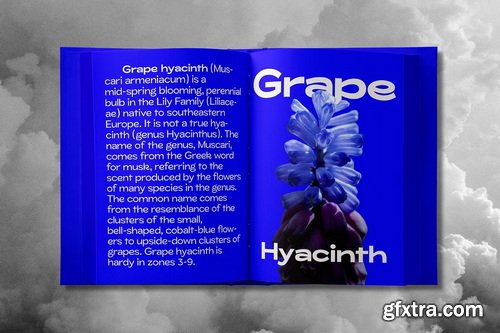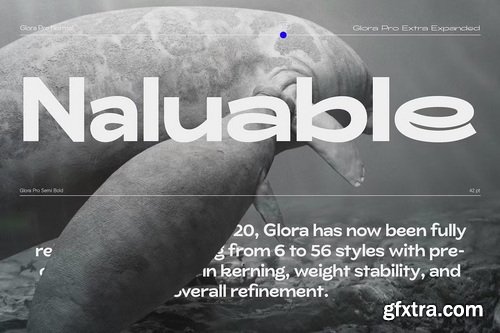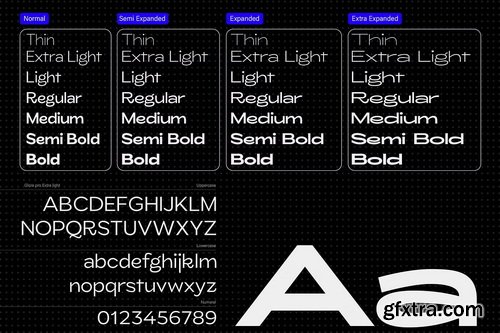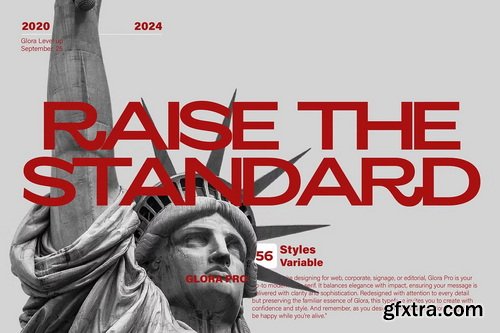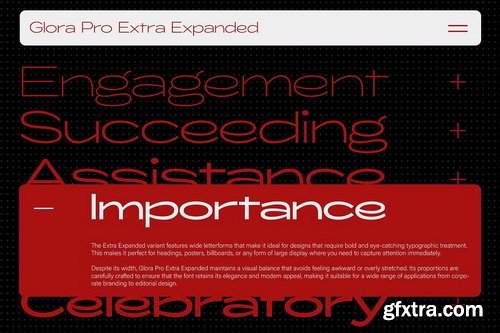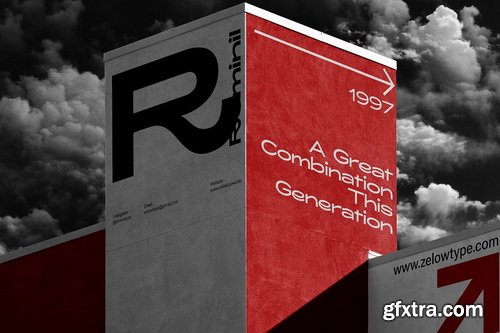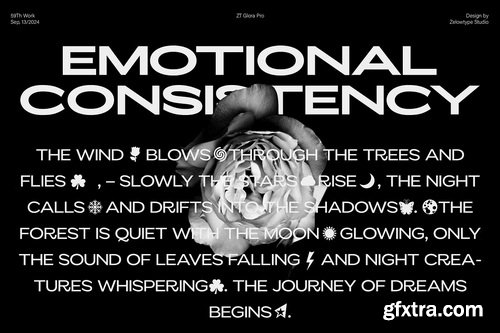
- Glora Pro is the next chapter in the Glora story, meticulously crafted to bring an elevated experience to your design projects. Originally released in 2020, Glora has now been fully reimagined, expanding from 6 to 56 styles with precise improvements in kerning, weight stability, and overall refinement. With the addition of new variants—Normal, Semi Expanded, and Extra Expanded, each complete with their own italic styles—Glora Pro maintains the signature soft touch and strong letterforms that made the original beloved, while offering greater versatility and depth.